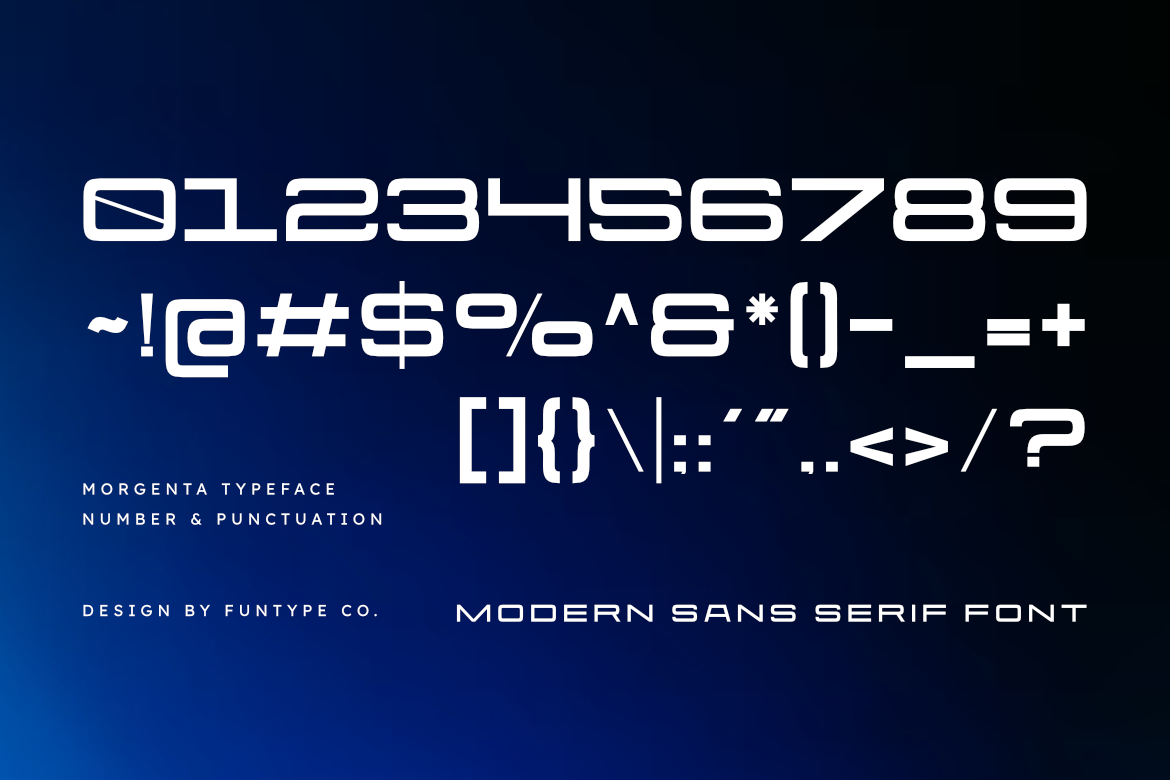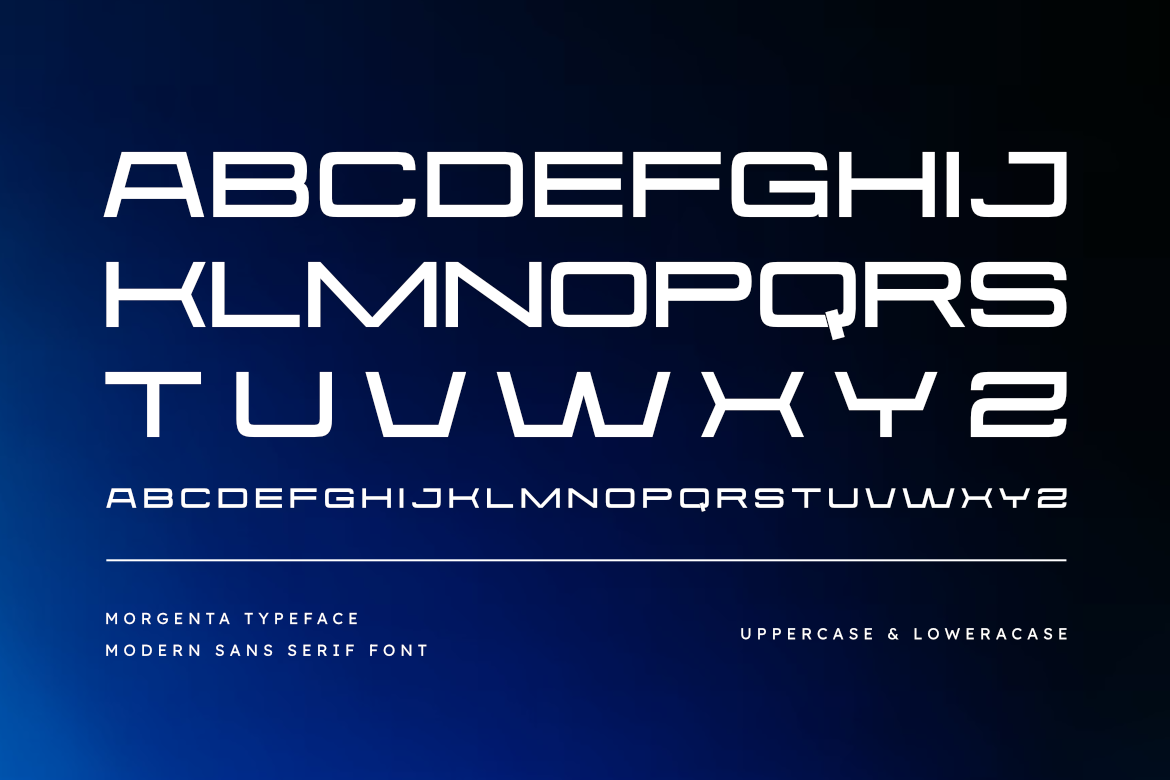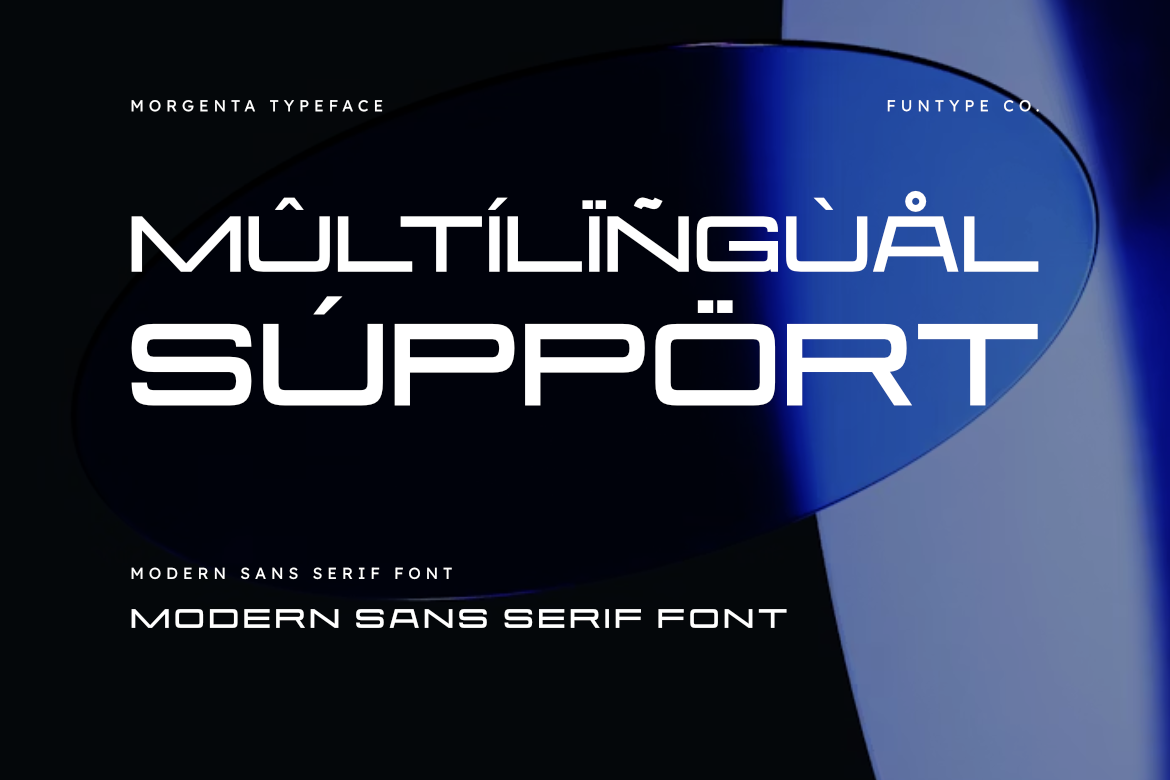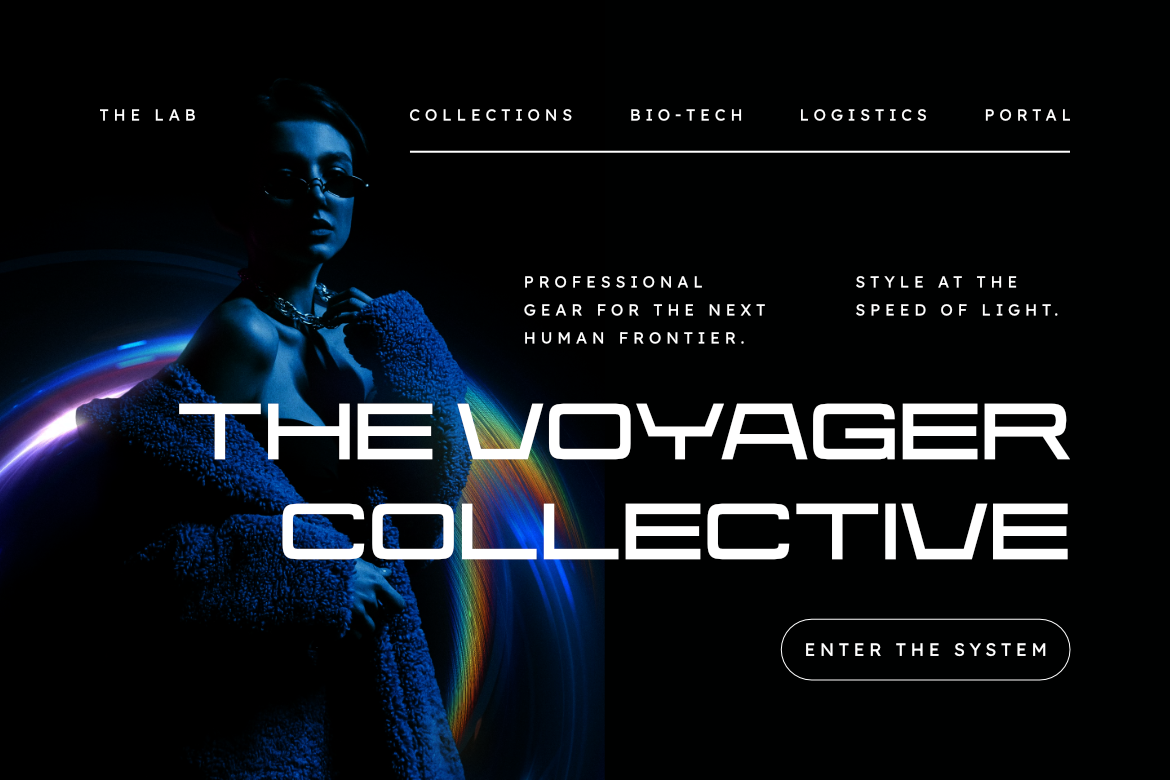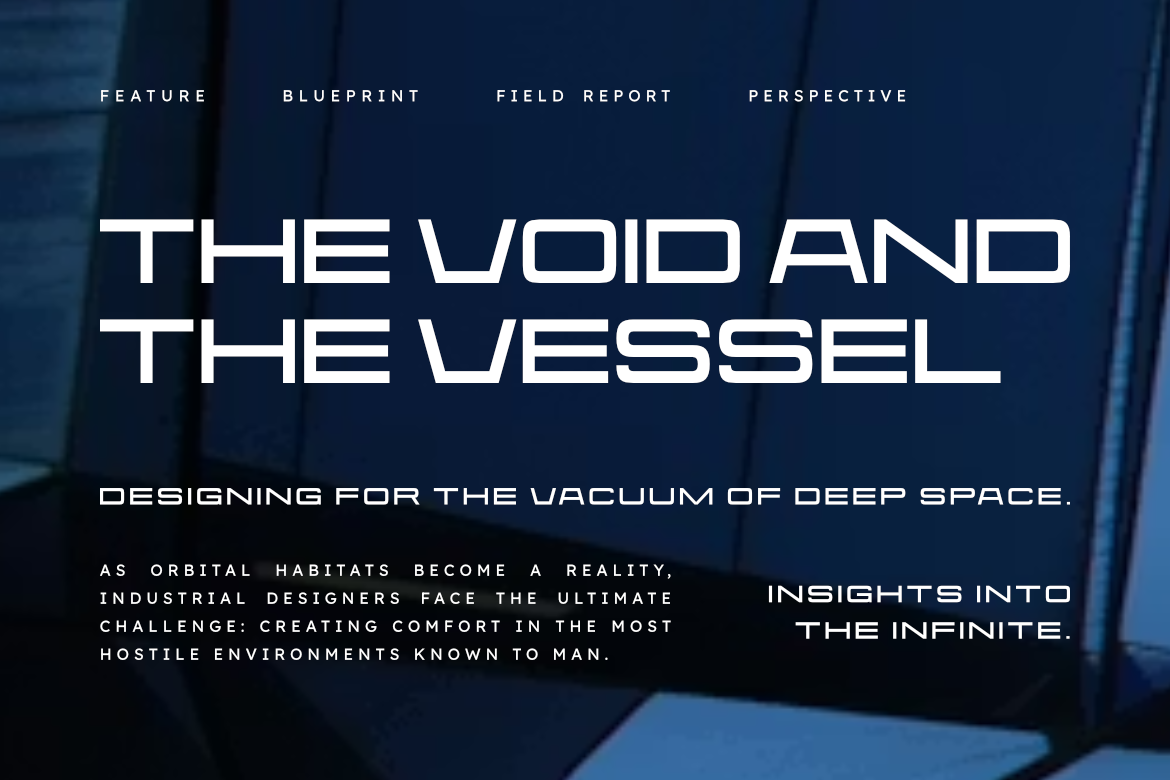
Morgenta
Morgenta – Modern Sans Serif Font for Tech Brand Identity
Morgenta is a sophisticated and powerful modern sans serif font, thoughtfully designed to capture the essence of contemporary impact and futuristic storytelling. With its wide geometric structure and clean, expansive lines, Morgenta offers a professional aesthetic that brings a touch of commanding presence to any creative project.
This font is the ideal choice for designers looking to add a professional yet high-impact touch to their work. Whether you are crafting a striking automotive logo, a sleek technology brand identity, or bold editorial layouts, Morgenta provides a seamless blend of modern flair and digital authority.
Main Features:
- Modern Wide Sans Design: Optimized for a bold, expansive, and high-end look.
- Refined Geometric Letterforms: Meticulously crafted for superior legibility and balance.
- Multilingual Support: Broad character set for international design projects.
- Professional Aesthetic: High-end finish for modern tech and corporate identity design.
Best Used For: Tech startup logos, automotive branding, futuristic user interfaces (UI), cinematic titles, industrial packaging, and modern corporate typography.